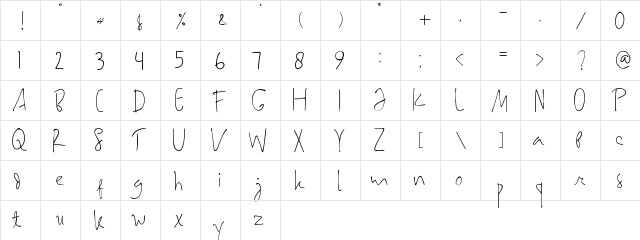
SamarasaHandwriting Regular
Design Context for SamarasaHandwriting Typeface
SamarasaHandwriting brings a calligraphic fluidity to the page — its connecting strokes and expressive curves give it an unmistakably human quality.
Font Pairing: Combine SamarasaHandwriting with a simple geometric sans for maximum contrast — the tension between flowing curves and clean structure is a classic typographic pairing.
Pro Tip: Use SamarasaHandwriting for short runs of text — names, titles, or taglines. Extended body copy in script faces tires the eye quickly.